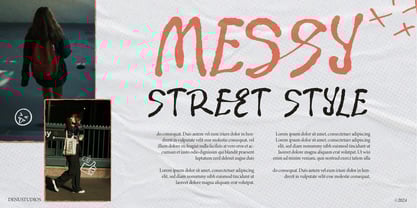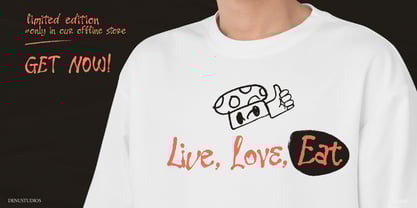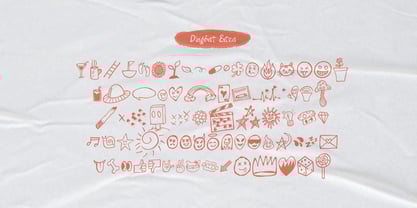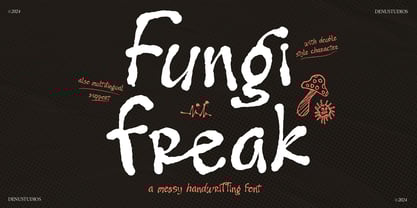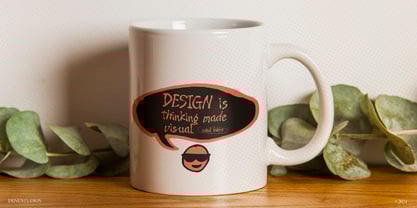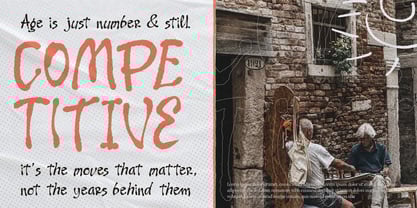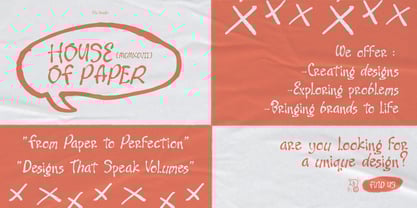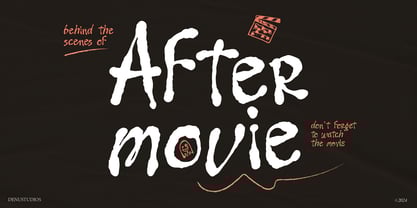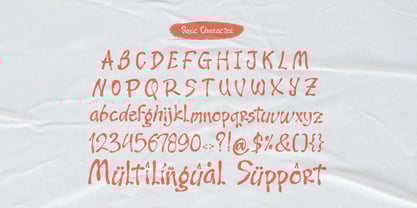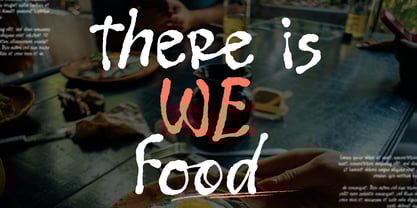
Fungi Freak
La familia tipográfica Fungi Freak fue diseñada por Dede Nugraha y publicada por Denustudio. Fungi Freak contiene 2 estilos y opciones de paquete familiar.
Fungi Freak | Messy Handwritting Font, from Denustudios, suitable for any projects such as: logos, branding projects, homeware designs, product packaging, mugs, quotes, posters, shopping bags, t-shirts, book covers, name card, invitation cards, greeting cards, label, photography, watermark, special events, and all your other lovely projects that need a Messy Handwritting Font taste.
• Regular and Italic
• Standard glyphs
• Alternate and Ligature
• Fonts include multilingual support